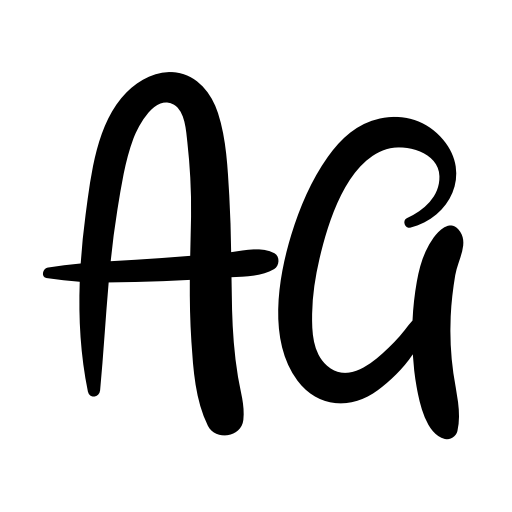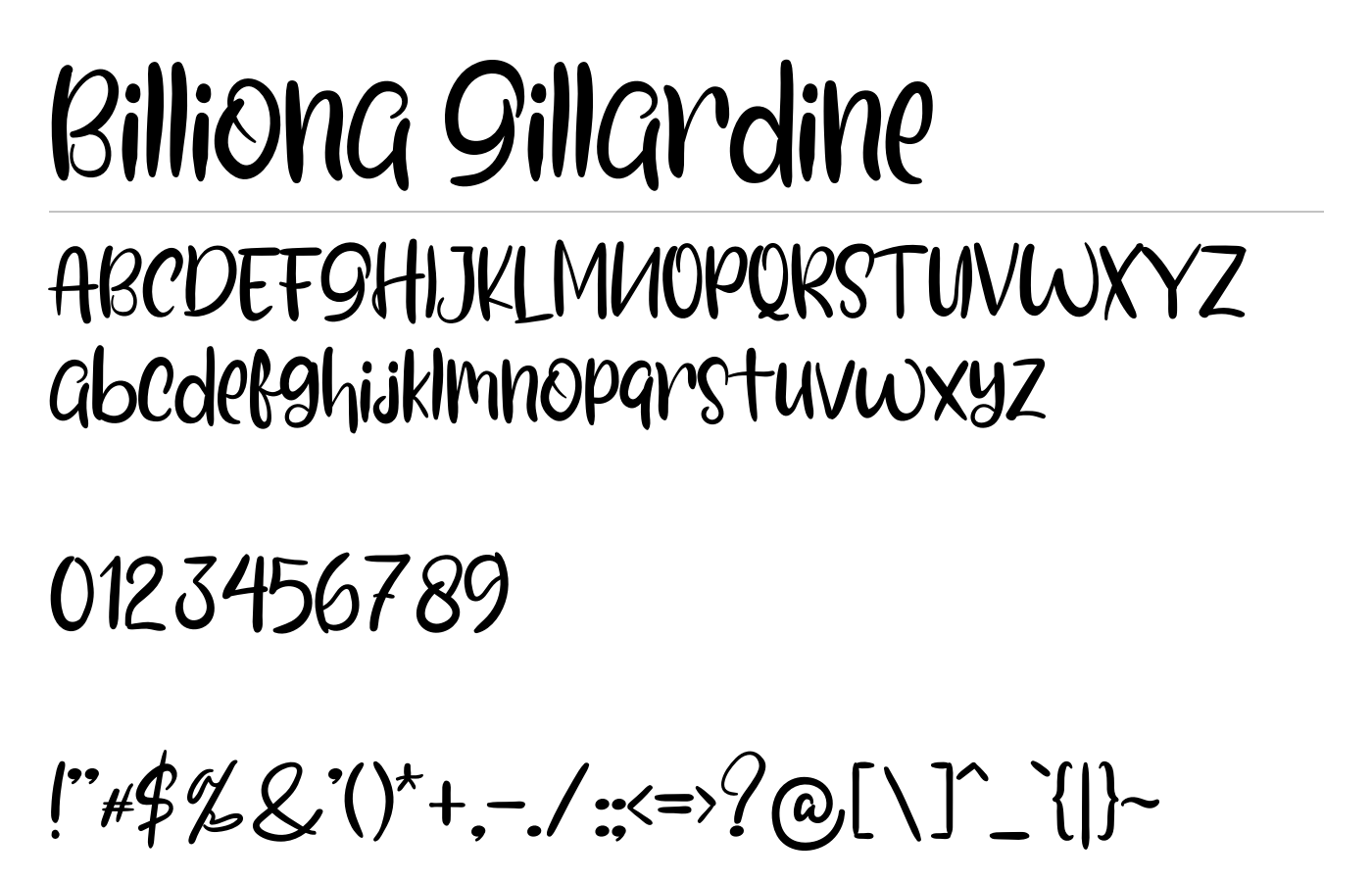
Billiona Gillardine is a playful and casual handwritten font with a lively, friendly vibe. It features a medium weight with smooth, rounded strokes and a consistent, slightly tall x-height, making it highly legible while maintaining a relaxed, informal feel. This font works wonderfully for creative projects, children’s materials, and branding that seeks a personal, approachable touch.
Billiona Gillardine Font
About Billiona Gillardine Font